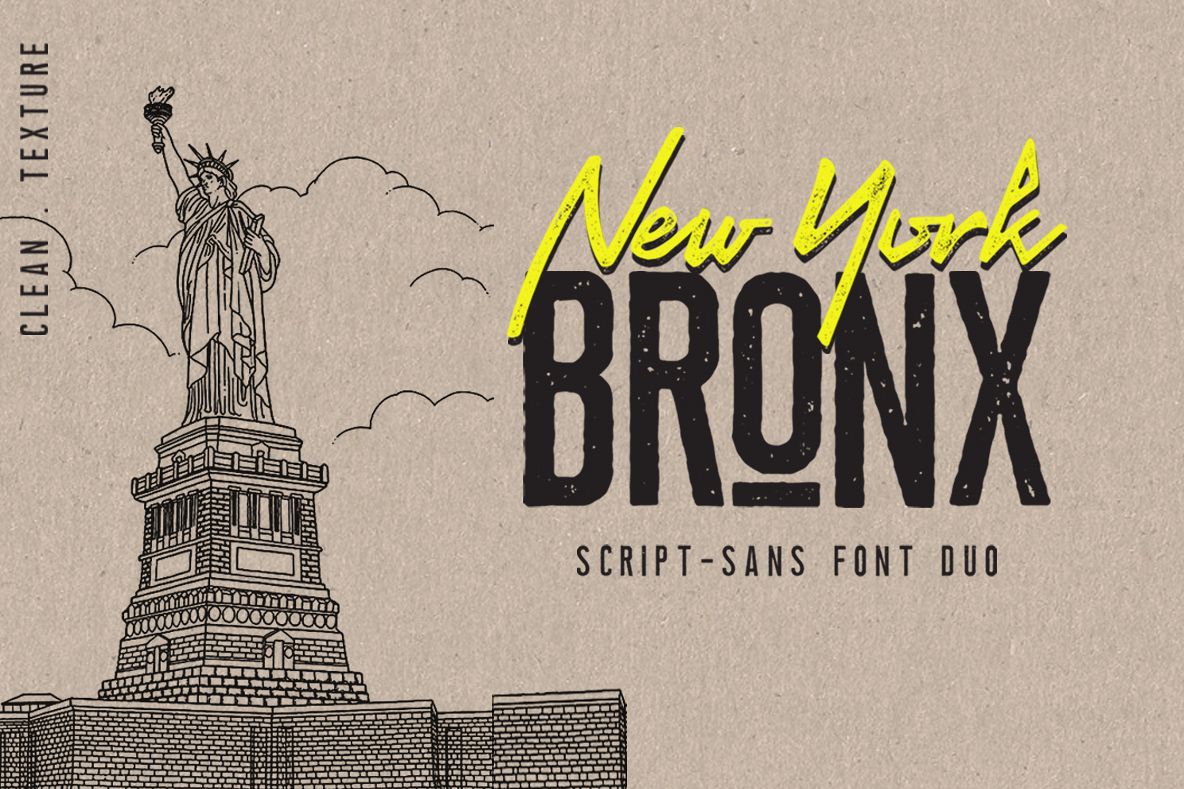
Newyork Bronx sans-script font duo
Bronx
Newyork-clean
Bronx-trace
NewyorkTrace
Introducing Newyork Bronx sans-script font duo, a classy, contemporary pair of script and serif fonts. With a stylish clean, outline and trace style serif font, expressive script companion, Newyork Bronx script & sans duo offers beautiful typographic harmony for a diversity of design projects, logo name, watermark logos & branding, wedding designs, social media posts, advertisements & product designs.Your download will receive 8 font files OTF and TTF, designed to work as perfect companions or simply as strong standalone typefaces;
1. Newyork clean
• A clean, free-flowing script font containing upper & lowercase characters, numerals and a large range of punctuation.
2. NewYork trace
• A clean, free-flowing script font containing upper & lowercase characters, numerals and a large range of punctuation.
3. Bronx clean
• with a completely new set of upper & lowercase characters. If you wanted to avoid letters looking the same each time to recreate a custom-made style, or try a different word shape, simply switch to this font for an additional layout option.
4. Bronx-trace
• A classy serif font containing upper & lowercase characters, numerals and a large range of punctuation. Creates a perfect pairing contrast with the Newyork Script fonts.5. Newyork Ligatures